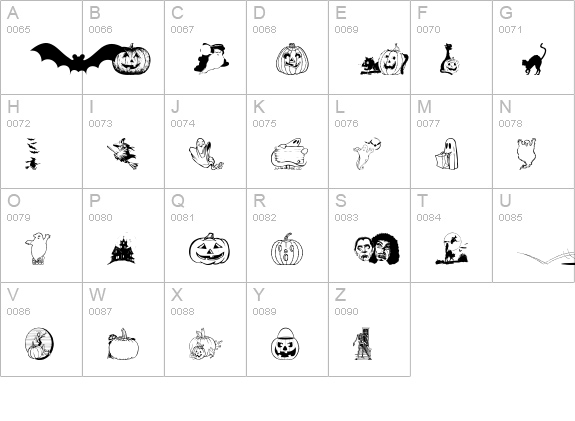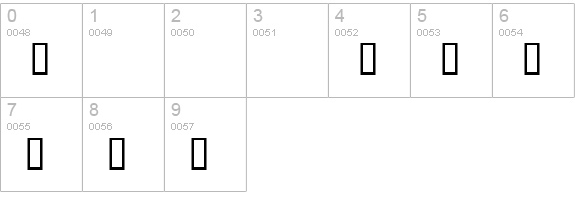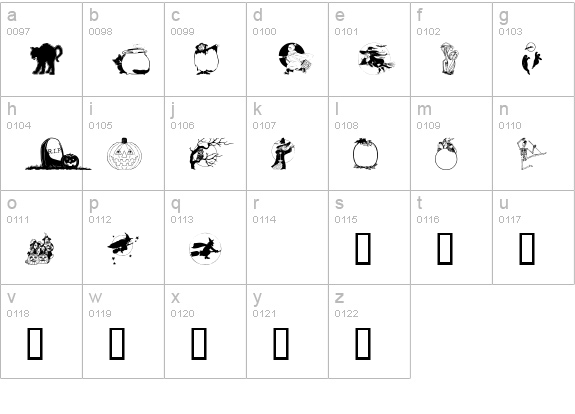
Helloween version 2 Font Details
Introducing Helloween Version 2, a captivating font that will add a touch of magic and whimsy to your designs. With its intricate and playful letterforms, this font brings to life the spirit of Halloween all year round. Helloween Version 2 is not only visually stunning but also versatile, making it suitable for a wide range of projects. Whether you're designing spooky invitations, creating eye-catching posters, or crafting captivating social media graphics, this font will help you make a bold statement. What sets Helloween Version 2 apart is its unique blend of elegance and quirkiness. Each letter is meticulously crafted to showcase the perfect balance between spooky and stylish. The intricate details, curvatures, and distinctive shapes will leave a lasting impression on your audience. But that's not all – Helloween Version 2 is available for free! Yes, you read it right. You can download this extraordinary font for absolutely no cost at FontsMarket.com. We believe that creativity should be accessible to all, and by offering this font for free, we hope to inspire designers and enthusiasts to explore their imagination without any limitations. So, why wait? Unleash your creativity and embrace the enchanting world of Helloween Version 2. Download it today and let your designs come to life with a touch of magic. Don't miss out on this incredible opportunity to enhance your projects with a font that is both captivating and free. Head over to FontsMarket.com now and elevate your design game with Helloween Version 2.